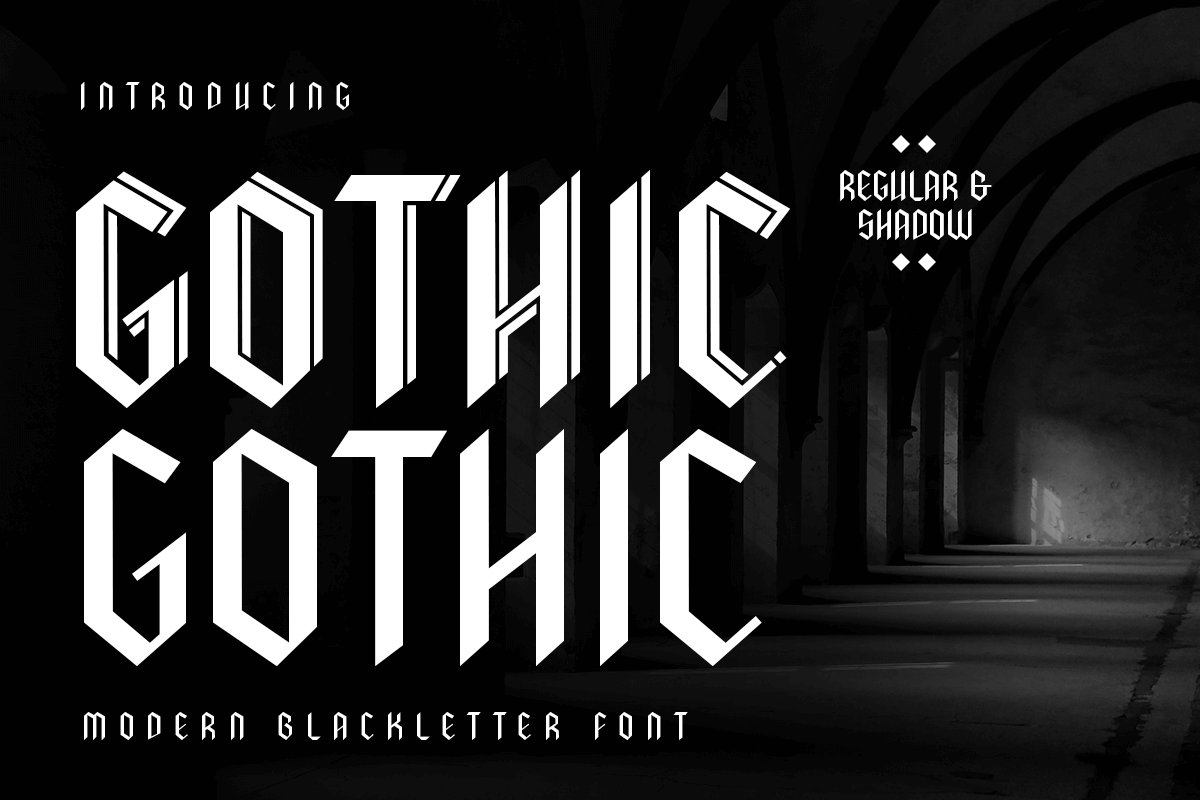
Gothic
-Modern Blackletter Font
Gothic is a Modern Blackletter Font with a gothic, roman, and old style, font that you can combine to get any variations and unique shapes easily just in seconds with choose alternates of them. It is a serif display font with moderate contrast that perfect for branding projects, logo, wedding designs, social media posts, advertisements, product packaging, product designs, label, photography, watermark, invitation, stationery, and any projects, it makes with a high level of legibility.